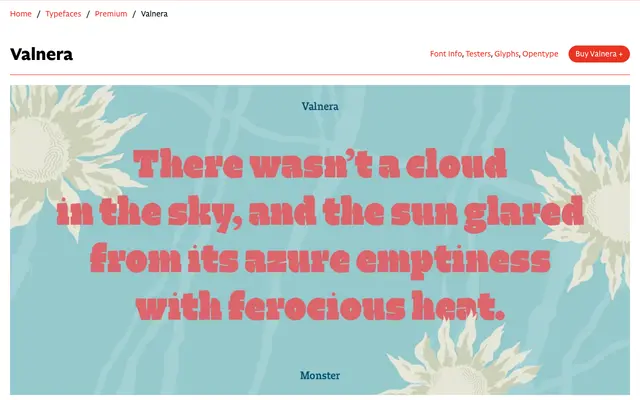
Valnera
CAST · Riccardo De Franceschi · 2010
Valnera specimen from CAST
An angular, low-contrast humanist serif by Riccardo De Franceschi, drawing on broad-pen calligraphy and the spiky character of 1970s photocomposition faces such as Cartier and ITC Mendoza.
Sharp connections between stems and arches, flat horizontal curves and ink-trap-like crotches give the typeface an interrupted, almost fragmented counter construction reminiscent of Dwiggins's m-formula. Eight weights with matching italics cover text and display use, while three additional subfamilies -- SemiRandom, Random and the headline-only Monster -- introduce glyph variation to break up the regularity of typeset text. The family is also available as variable fonts and supports an extensive Latin Extended character set across dozens of languages.
Described explicitly as a low-contrast humanist serif with angular construction, broad-pen influenced terminals and simil-slab serifs; its calligraphic origins and ink-trap-like crotches place it firmly in the humanist serif tradition.